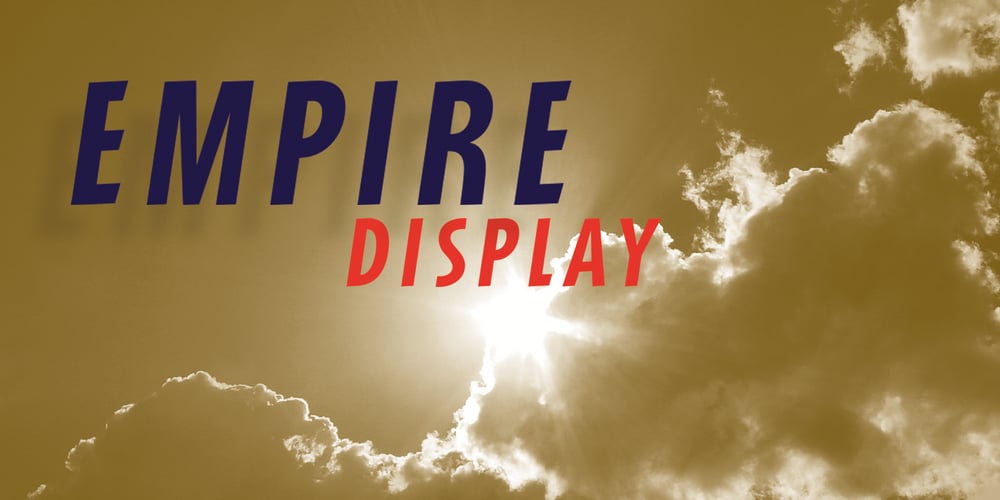
Empire Display Font Family was designed by Keith Morris and published by Bean & Morris. Empire Display contains 1 styles and family package options. Empire Display is a sans serif italic display face which references the styling of the 30s through to the 50s. It has a large x height and with its condensed proportions makes it ideal for headlines, posters or where large size settings are required. It has the unique feature of having the stems and cross bars slightly angled top and bottom. This also helps to create the art deco/modern feel that sets it apart from standard condensed typefaces.